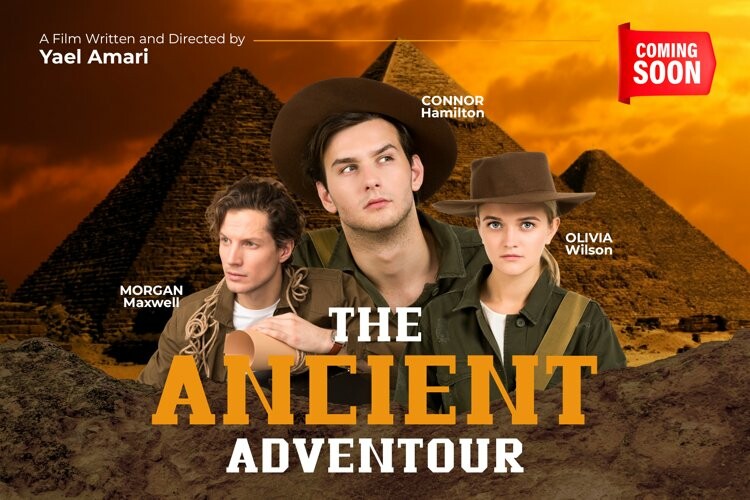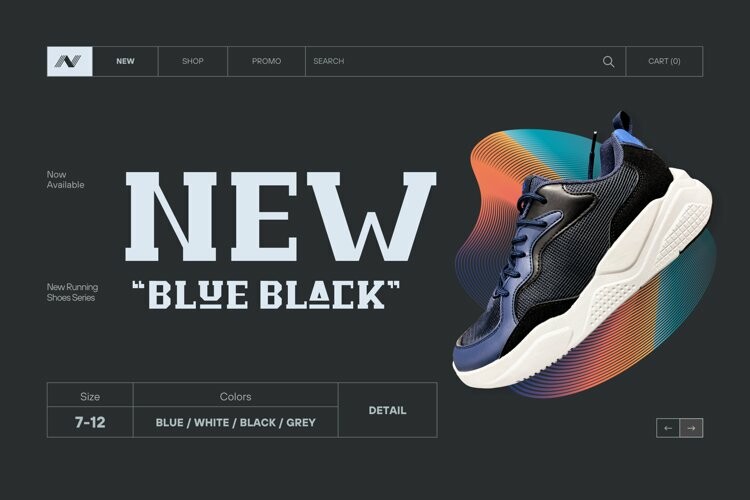
Home Track Font
Home Track FontHome Track is a display slab font. More explore the basic slab font speciality the uppercase mix with a vintage adventure style and make an unique alternates line. Will make your design strong, bold and stand out. With playful line this font perfects for headline, poster film, banner product, website, logo labels or any type of advertising purpose. This font support Multilingual Languages.